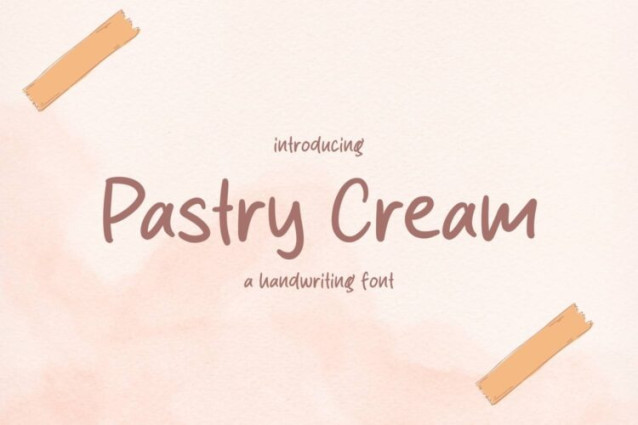
Pastry Cream Font
Pastry Cream Font is a simple and friendly handwritten font. Its natural and unique style makes it incredibly fitting to a large pool of designs. The only limit is your imagination!